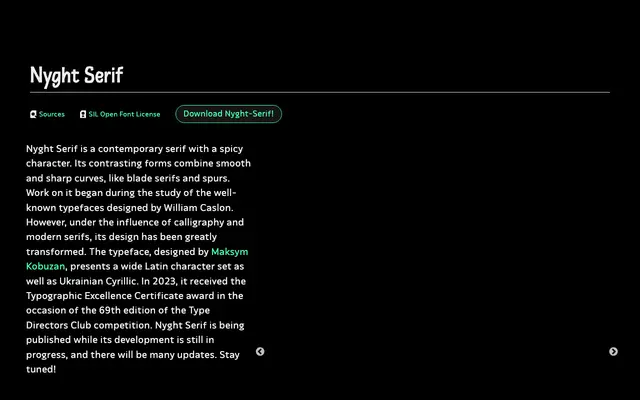
Nyght Serif
Tunera · Maksym Kobuzan · 2023
A contemporary serif by Maksym Kobuzan that pairs smooth curves with sharp blade serifs and spurs, winner of a Type Directors Club Typographic Excellence Certificate in 2023.
Designed by Kyiv-based Maksym Kobuzan, the typeface began as a study of Caslon but diverged substantially under the influence of calligraphy and modern serif design, resulting in a distinctive tension between fluid curves and cutting edges. Three weights from Regular to Bold are available with corresponding italics, covering an extended Latin character set plus Ukrainian and Bulgarian Cyrillic. Published under the SIL Open Font License whilst still in active development, with further weights and refinements planned.
Rooted in study of Caslon but substantially transformed by calligraphic influence and modern serif conventions, featuring contrasting smooth and sharp curves with blade serifs and spurs.